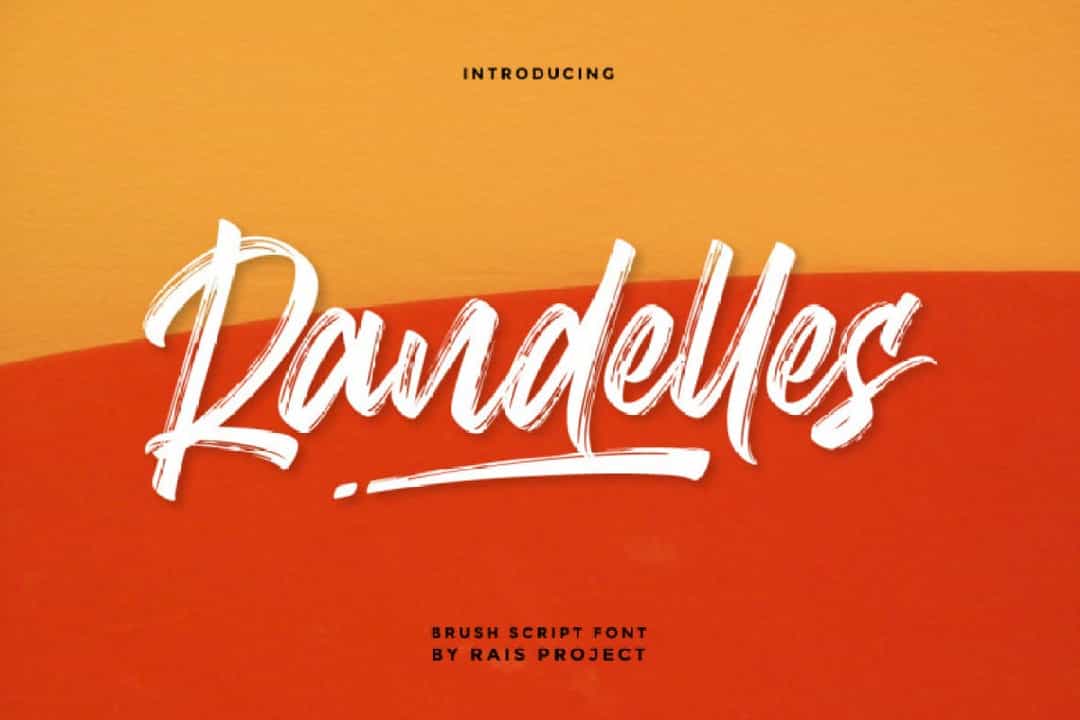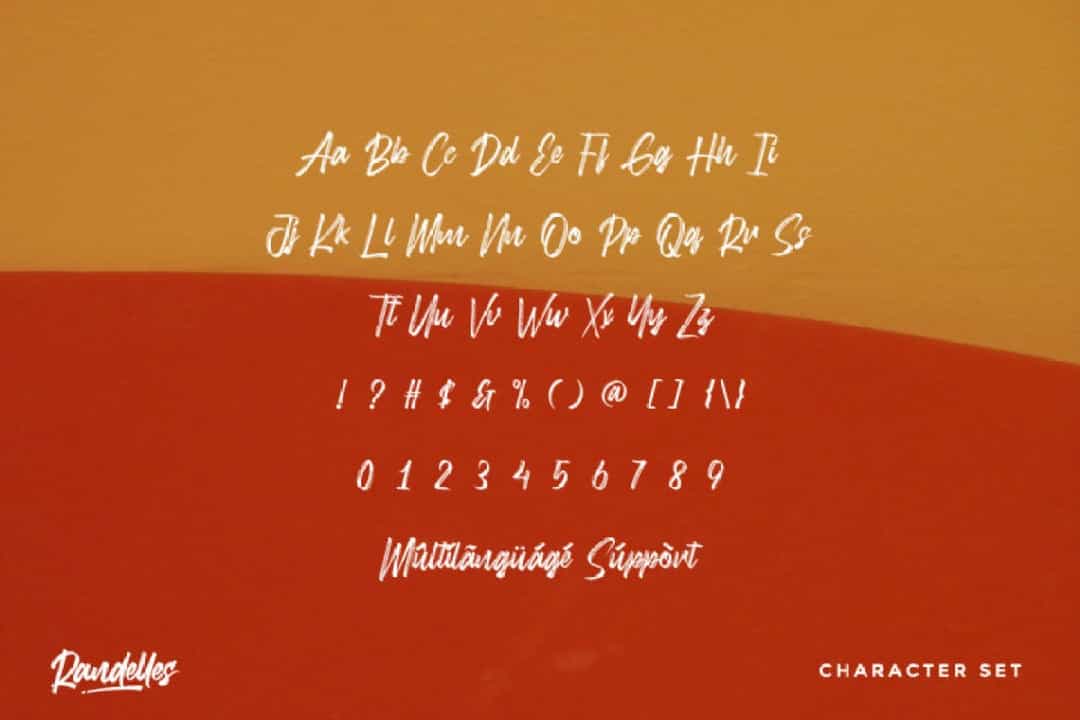
Discover Randelles Font, part of the Brush collection—a versatile and unique font perfect for adding a personal touch to your projects. Download it for free and enjoy crafting designs with style, from invitations to social media posts. This font is available exclusively for personal use, giving you the freedom to create without limits. Unlock your creativity with Randelles Font today!
Randelles was developed by Rais Project as a script with textured brushes. It features an elegant yet contemporary appearance, making it suitable for old-fashioned or vintage weddings, movies Magazine Game Music Video Racing Sports events etc.